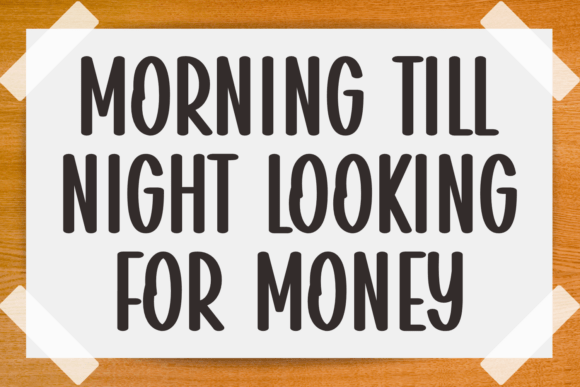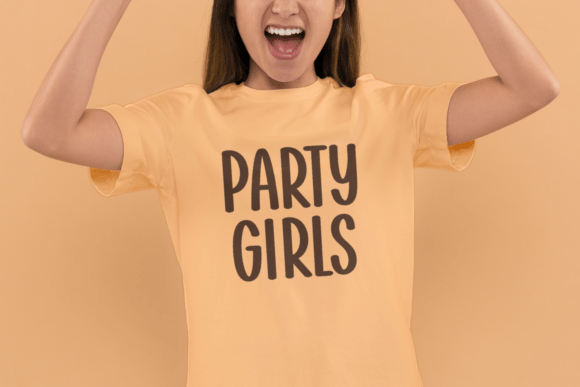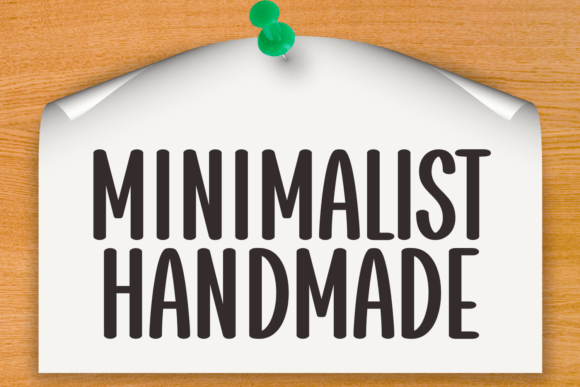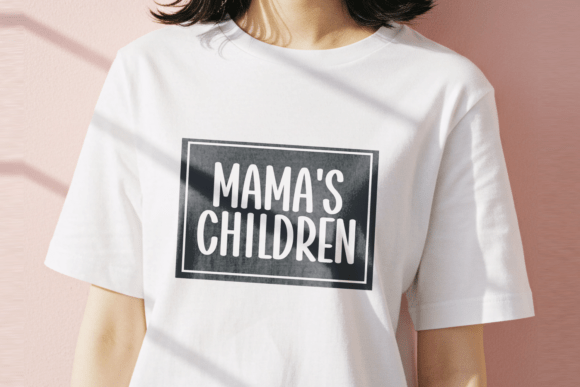
Introduction to Single Edition Font
Have you ever stared at a blank canvas, waiting for inspiration to strike, only to have a font pop into your head and change the entire direction of your creative project? That’s exactly what happened to me when I stumbled upon the Single Edition Font collection.
This treasure trove of typographic styles is a design resource that’s hard to put down, offering a wide range of high-quality fonts that are both nostalgic and playful. From effervescent bubbles to doodles with surprising facets, these fonts are perfect for designers looking to add a touch of whimsy to their work.
With its transparent background and versatility, Single Edition Font is a valuable resource for designers of all levels, offering a free download that’s sure to spark creativity and inspire new ideas.
Key Features of Single Edition Font
- Unique, handcrafted font with a transparent background, perfect for graphic designers and artists
- Unique characteristics include elegant lines, subtle texture, and a modern aesthetic, making it perfect for branding and marketing materials
Honest Review: Single Edition Font
As a designer, I’m always on the lookout for high-quality design resources that can elevate my creative projects. Recently, I stumbled upon the Single Edition Font, and I’m excited to share my honest review with you.
- ✨ The font has a unique and elegant design that’s perfect for creative projects.
- ✨ The transparent background makes it easy to customize and integrate into any design.
- ⚠️ The font is not as versatile as some other options, making it less suitable for complex designs.
- ⚠️ Some users may find the font’s elegance to be too subtle, which can make it harder to stand out.
Overall, I think the Single Edition Font is a solid choice for designers looking for a high-quality, free design resource. While it may have its limitations, it’s a great option for creative projects that require a touch of elegance and sophistication.
The Single Edition Font is a high-quality design resource ideal for various creative projects. It features a transparent background, making it easily customizable for your needs.
Tips for Getting the Most Out of Single Edition Font
Experiment with different font sizes, colors, and styles to achieve the desired look for your project. Use the font in conjunction with other design elements to create a cohesive and visually appealing design.
The Single Edition Font is suitable for various creative projects, including brochures, flyers, business cards, and website headers. Its high-quality design and transparent background make it an ideal choice for a wide range of applications.
Can I customize the Single Edition Font to fit my design needs?
Yes, the Single Edition Font is highly customizable, and you can adjust its settings to fit your design needs. You can change the font size, style, and color, and even use it in combination with other fonts to create a unique look. The font also supports a wide range of languages, making it a great choice for international projects.